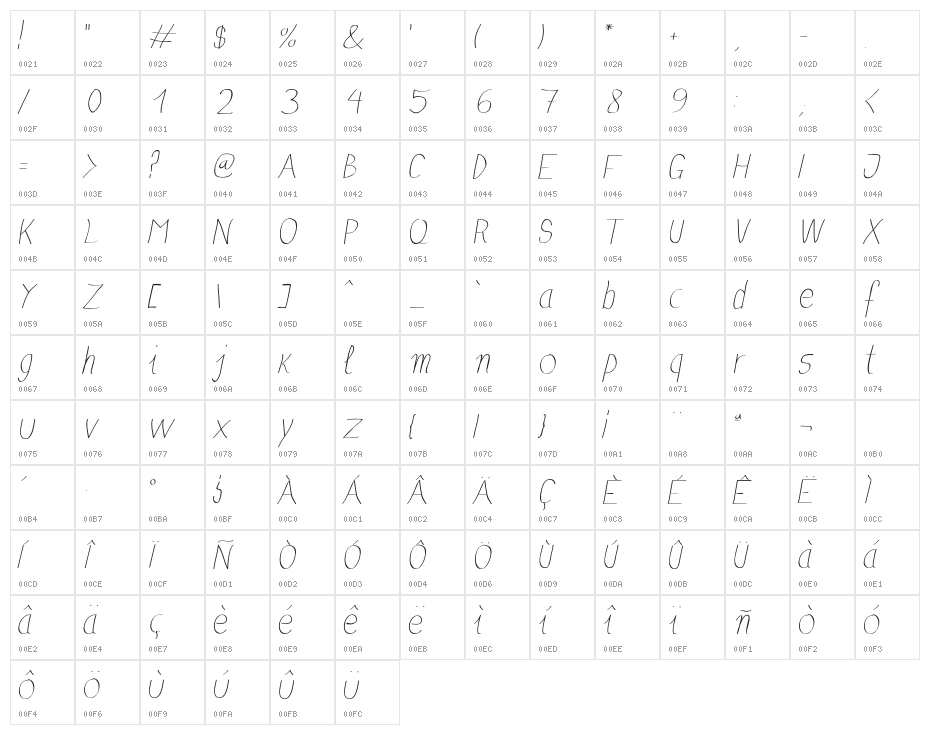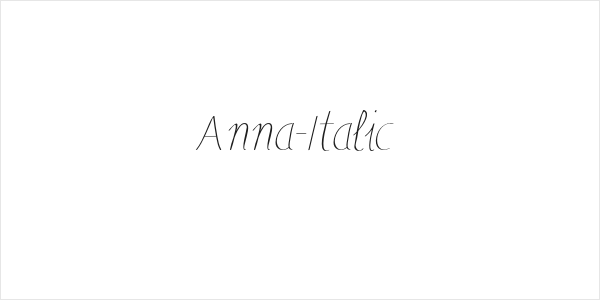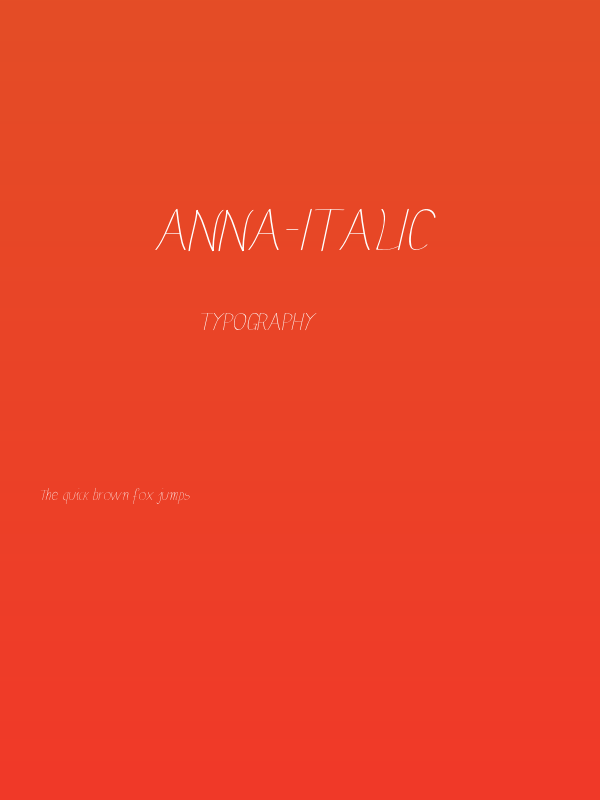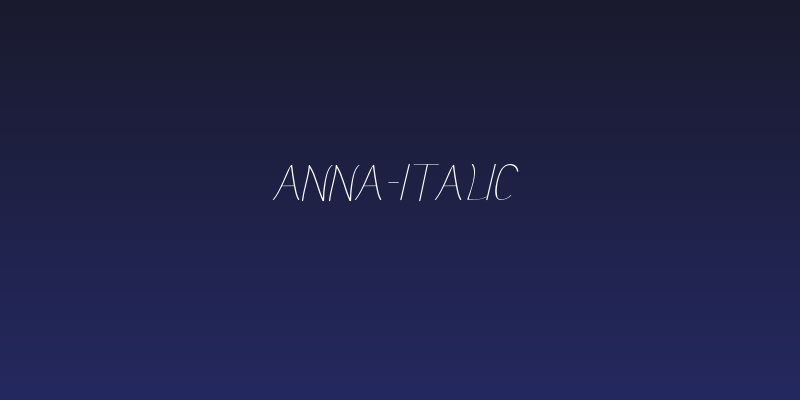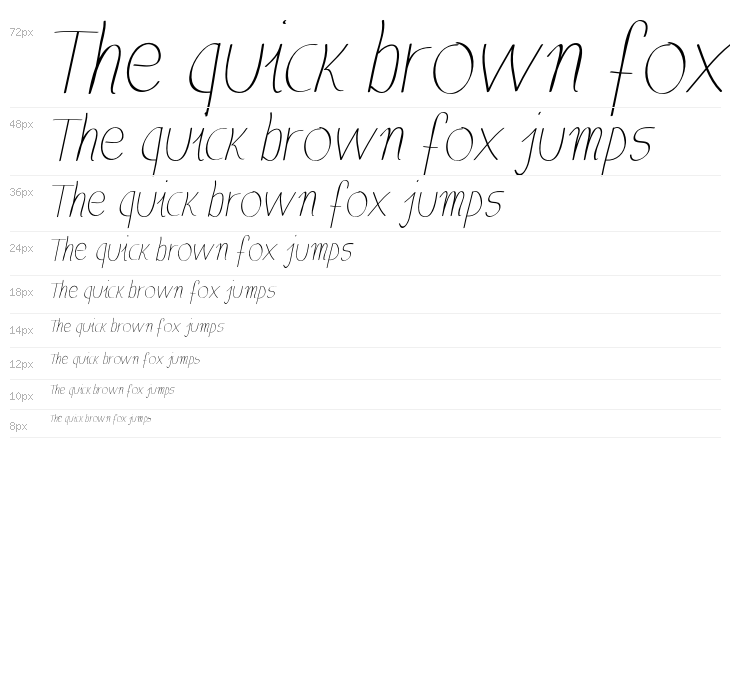
Anna-Italic Font
Anna-Italic Description
This font features a delicate and elegant italic style, characterized by its thin, flowing lines and slight slant to the right. The letters are gracefully elongated, giving it a sophisticated and airy appearance. The uppercase letters maintain a consistent height, while the lowercase letters exhibit a harmonious balance with subtle variations in stroke width. The numerals are clean and legible, matching the overall aesthetic of the alphabet. Special characters are thoughtfully designed, maintaining the font's cohesive style. This font's refined and graceful nature makes it suitable for projects that require a touch of elegance and sophistication.
| Use Case | Headlines, Invitations, Branding |
| Proposed Projects | Ideal for wedding invitations, elegant branding, fashion magazines, and high-end product packaging. |